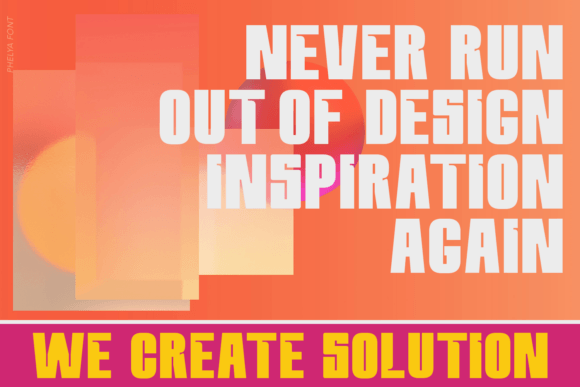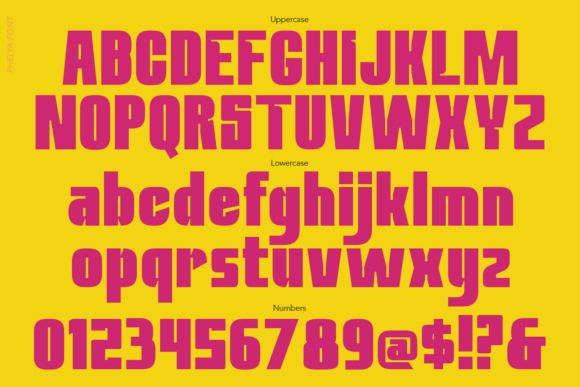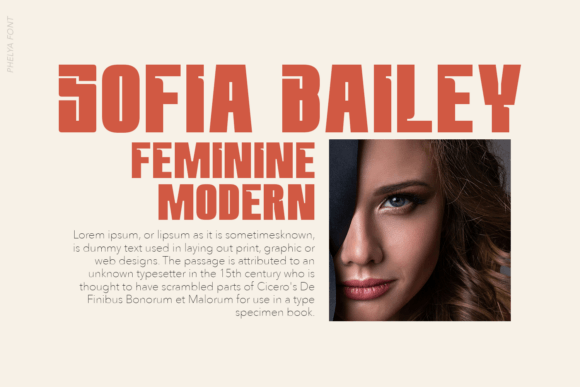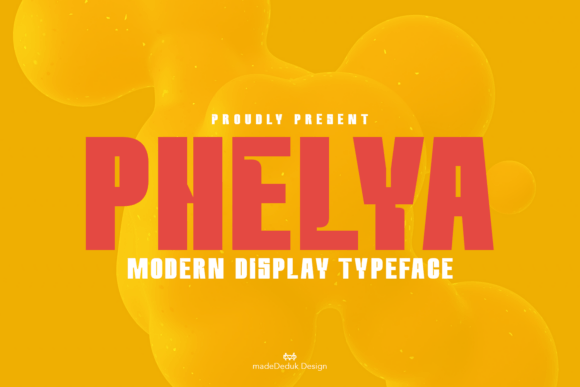
Phelya is a modern display font, come with single weight, legible and expressive shapes.
A lot of stylish alternates characters will makes this font suitable for your any project design .